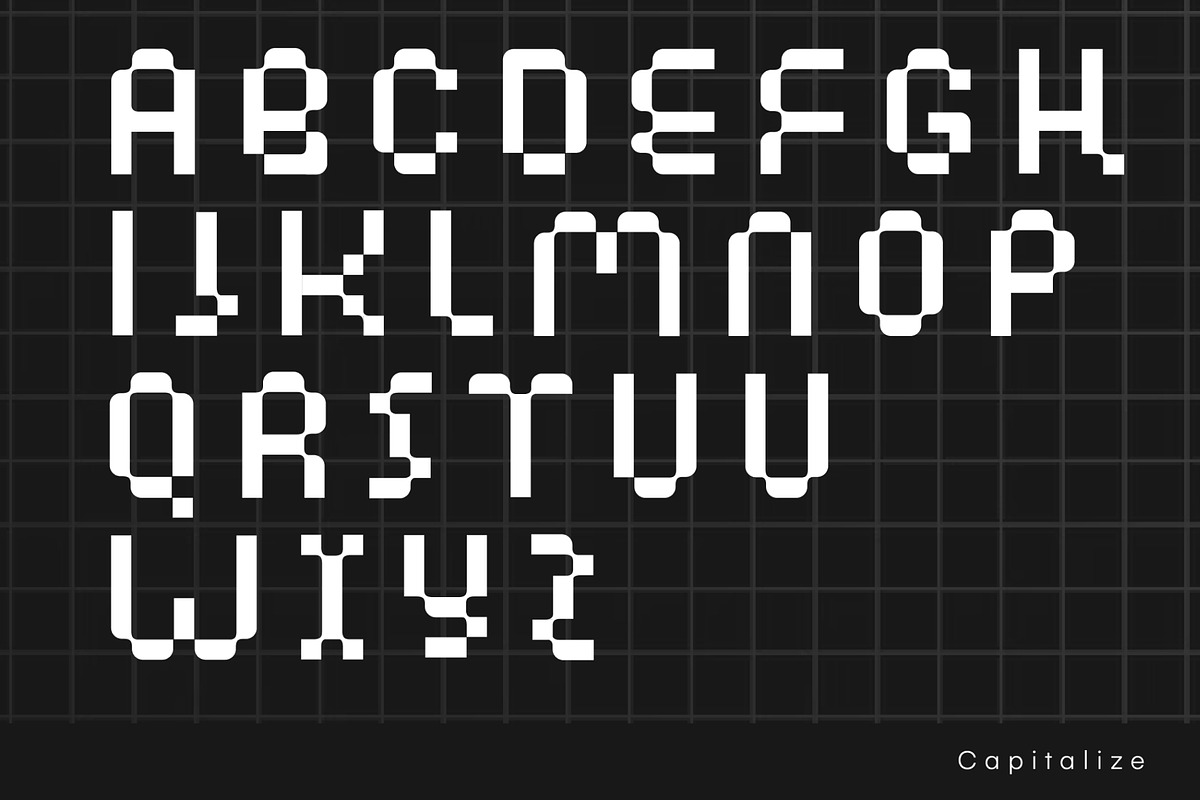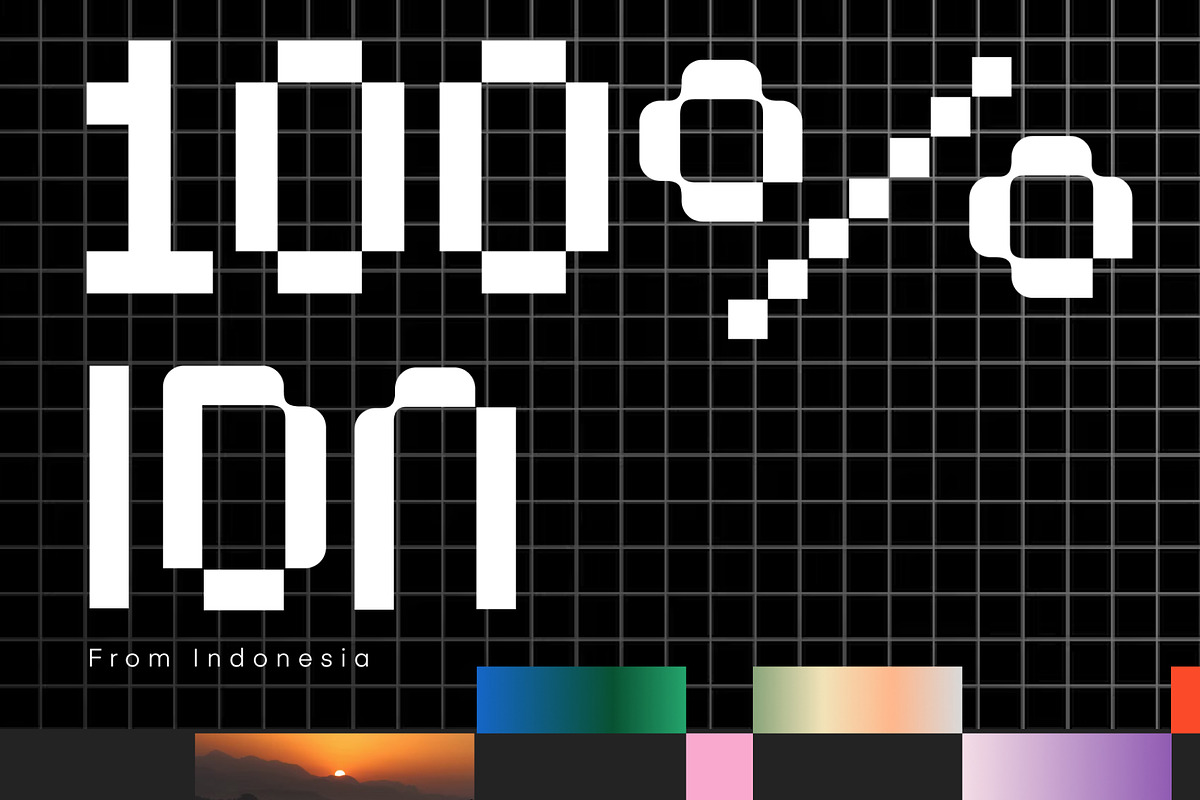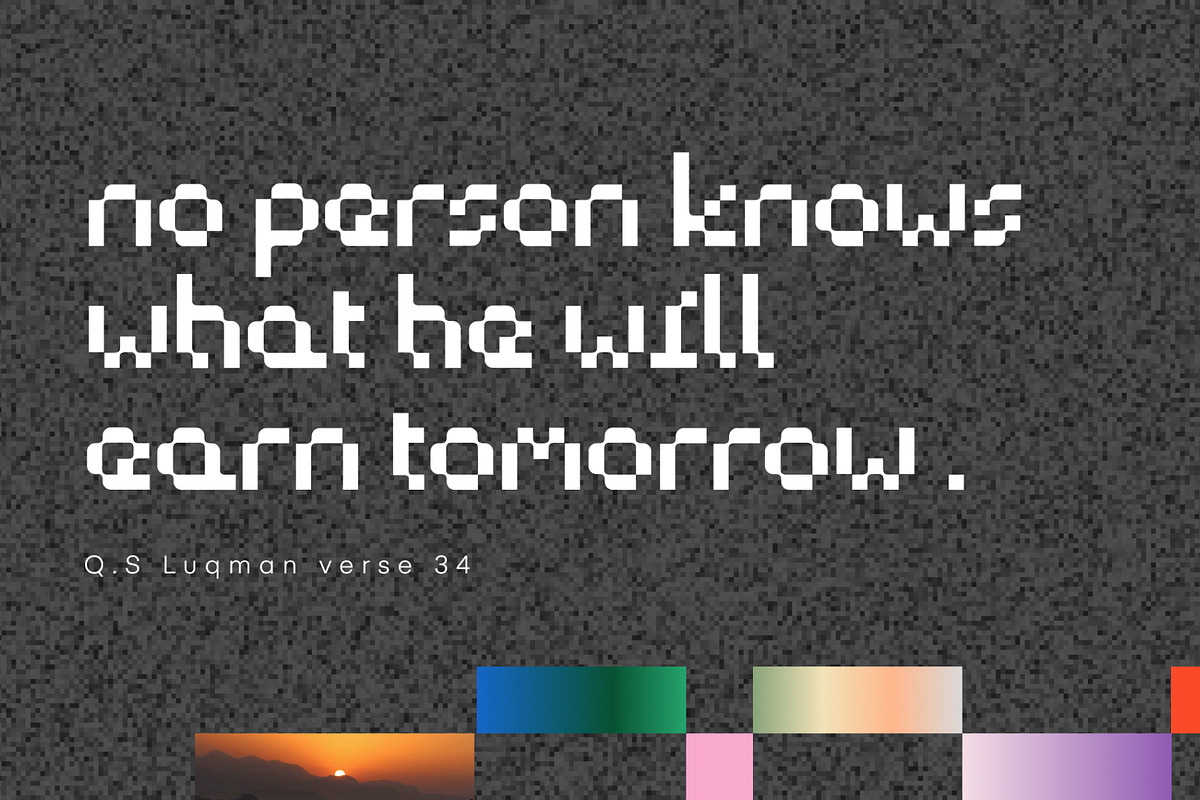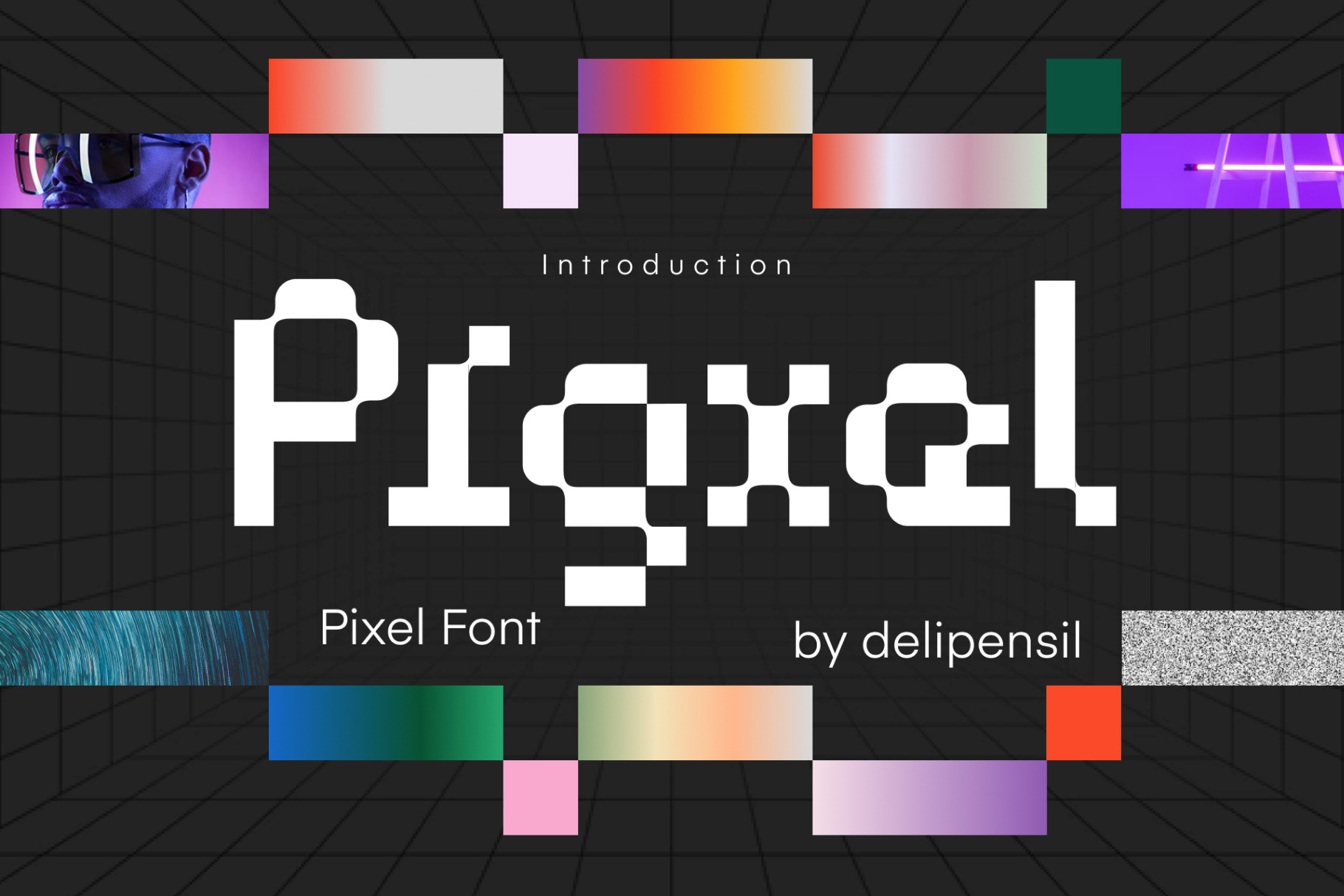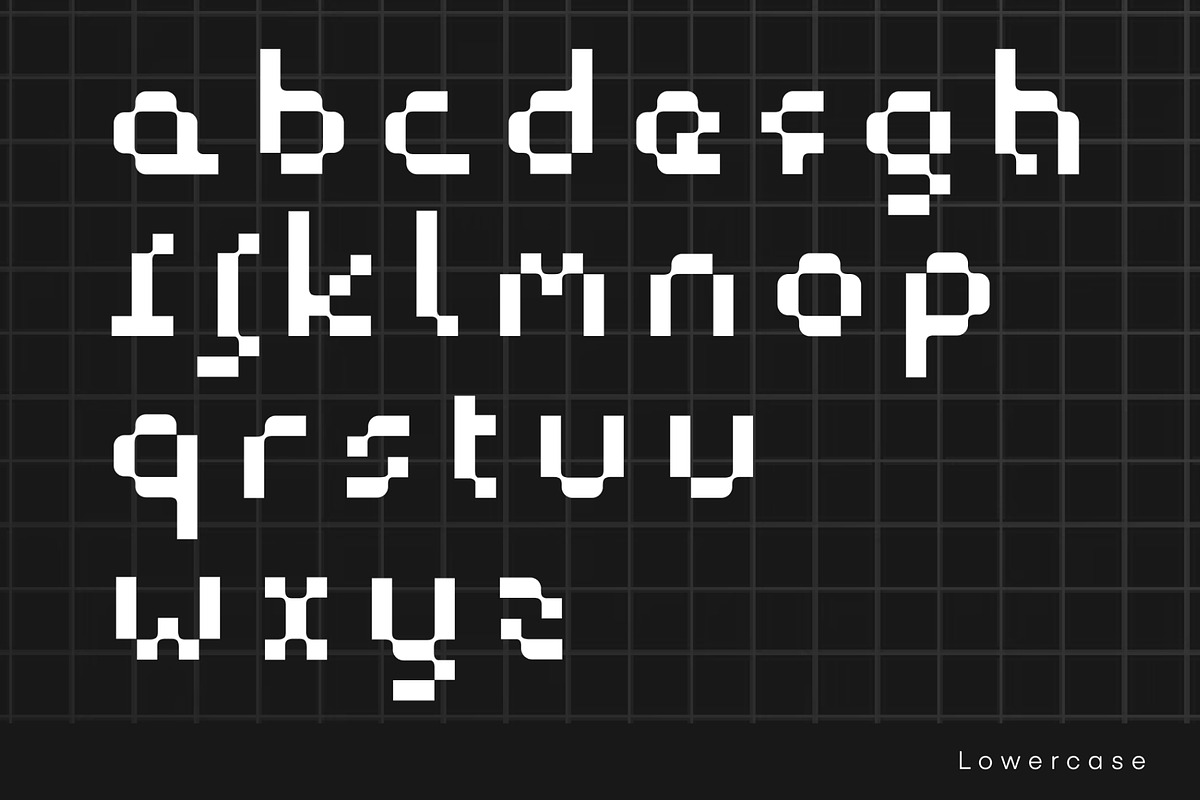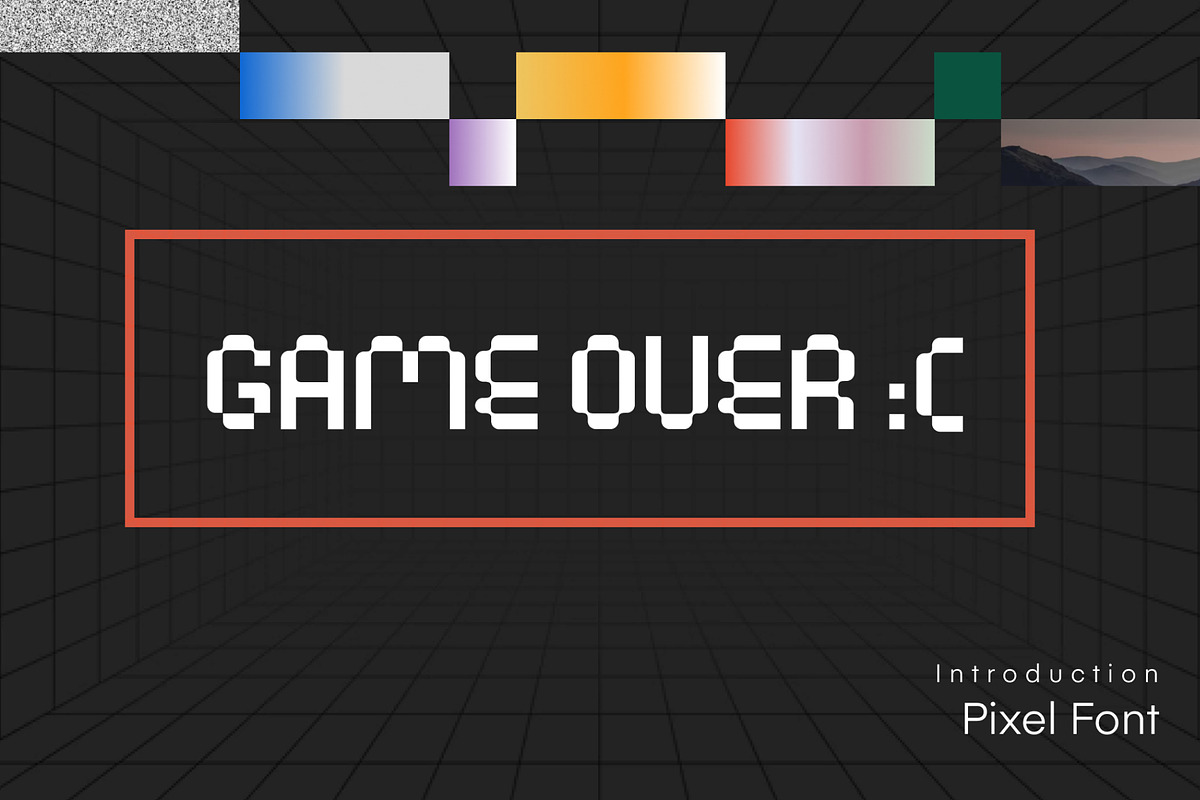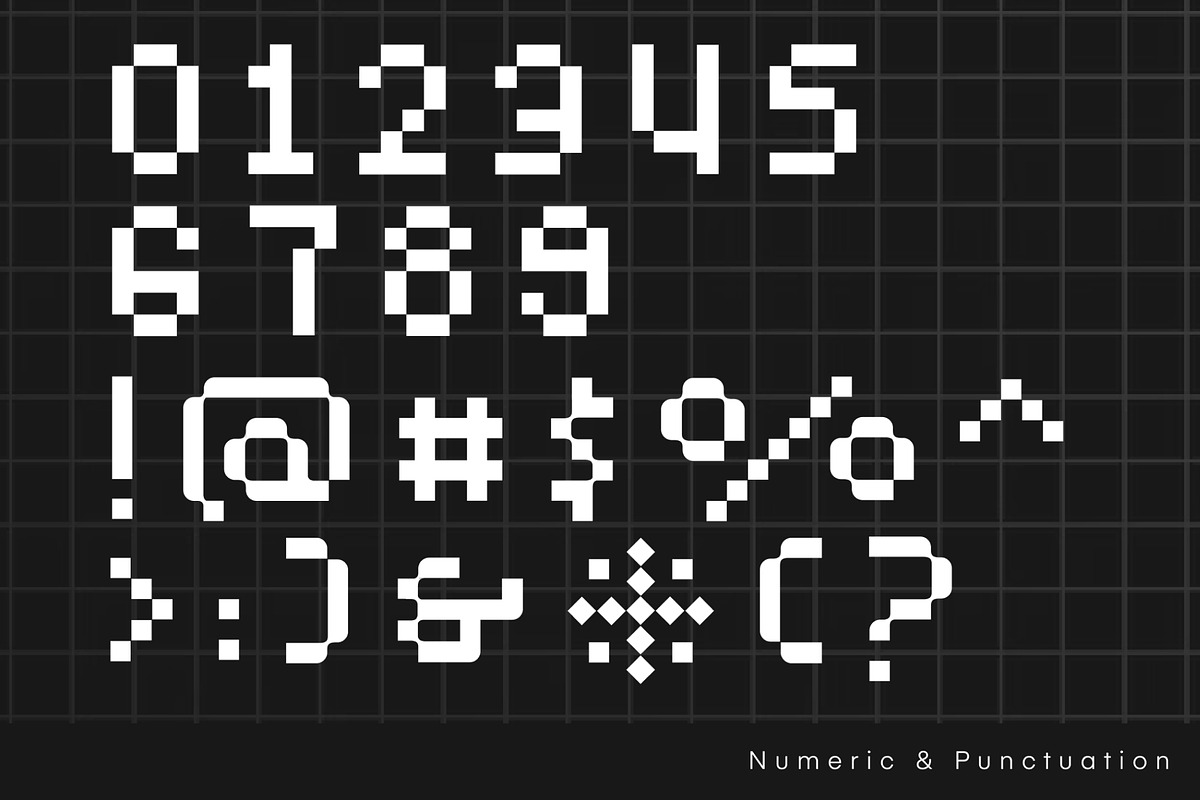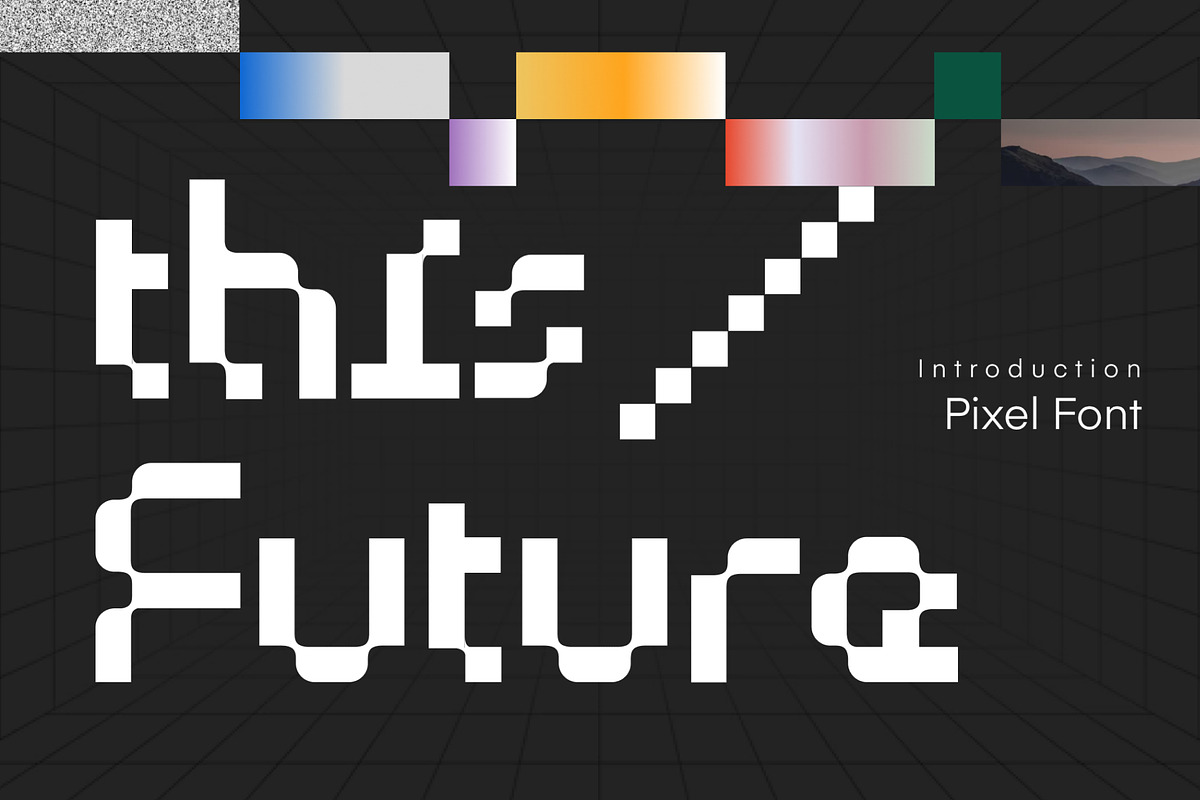
Pigxel - Modern Pixel Typeface
Bismillah, Introduction Pigxel - A Modern Pixel Typeface 👑✨
This new year, making new style future, for your project, product, headline, symbol, and anything, you can bring your design to another next level